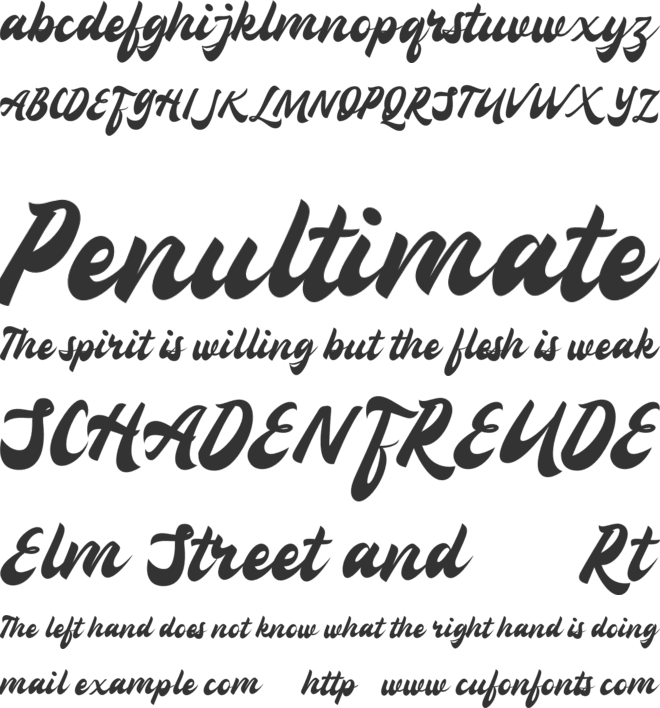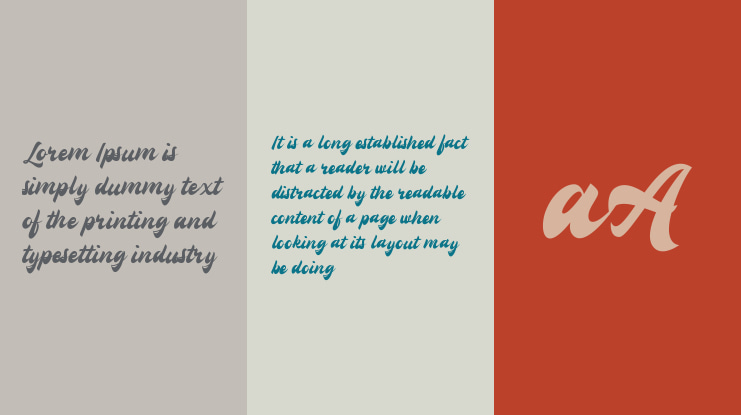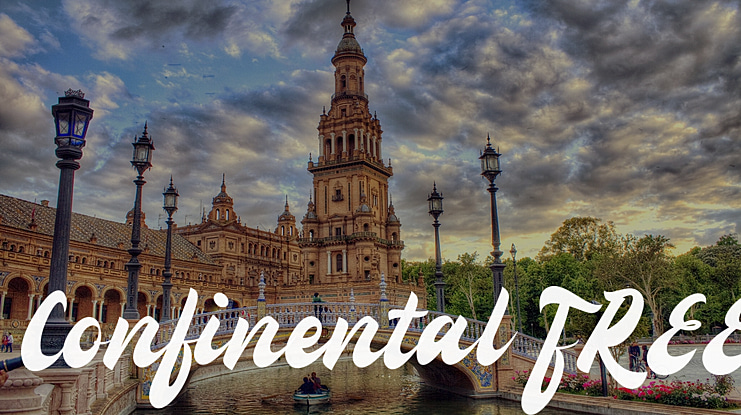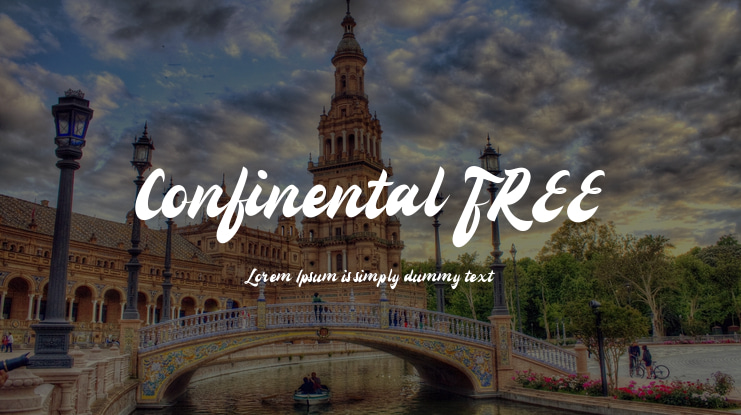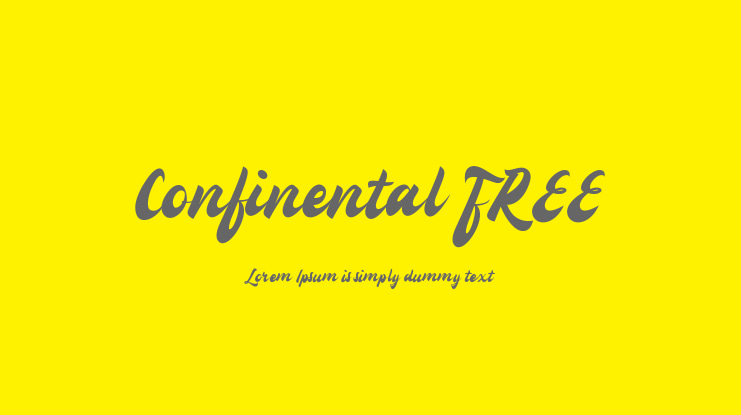
Confinental FREE Font
"Confinental" is a font display is made by hand, inspired by classic posters.
comes with uppercase, lowercase, numerals, punctuations and so many variations on each character include OpenType alternates, common ligatures and also additional swash to let you customize your designs. Perfect to use for Logotype, Letterhead, Poster, Apparel Design, Label and etc.